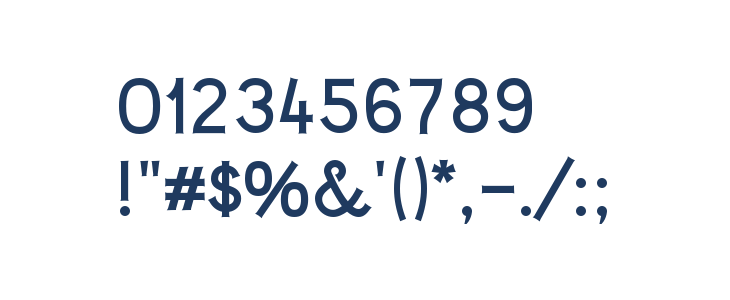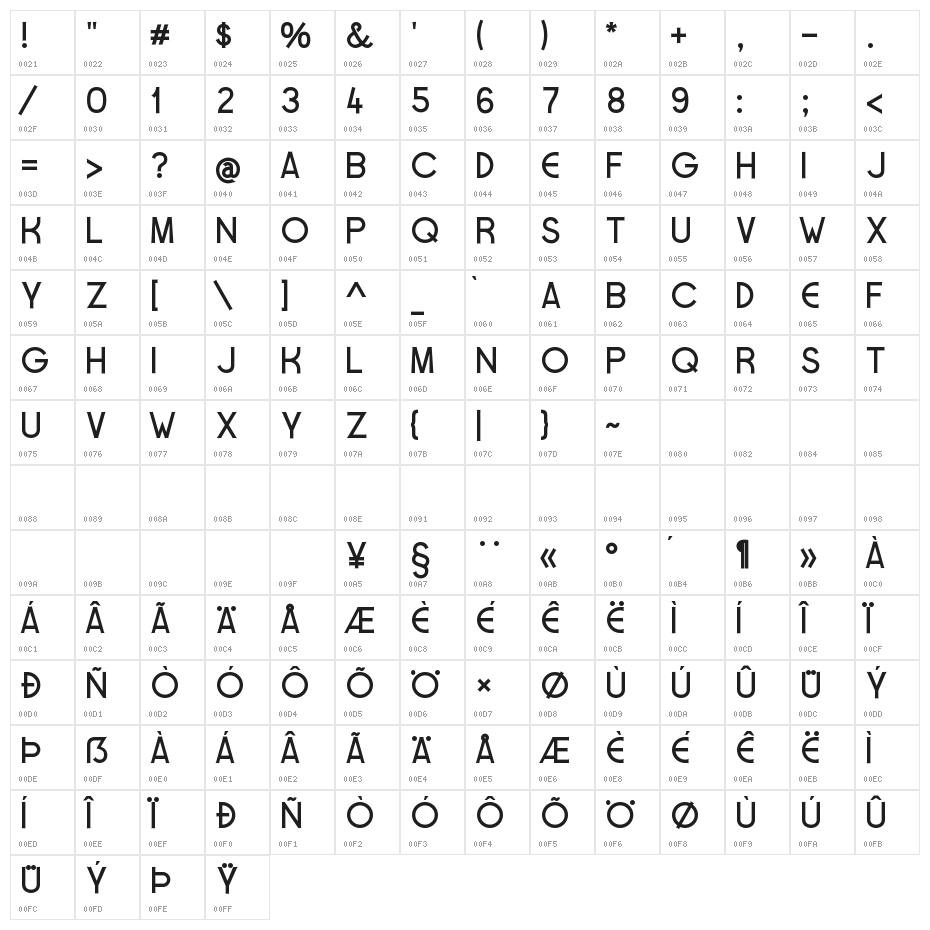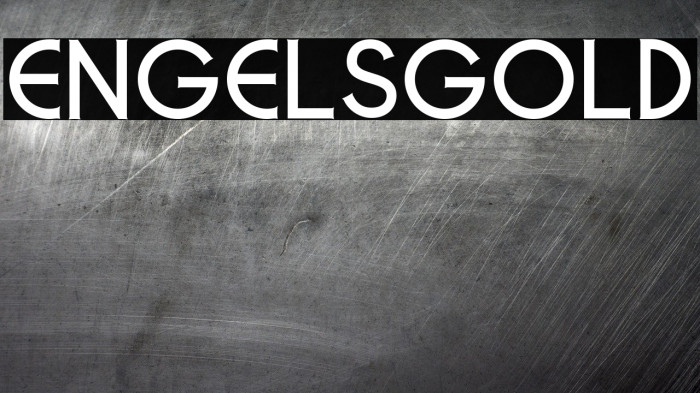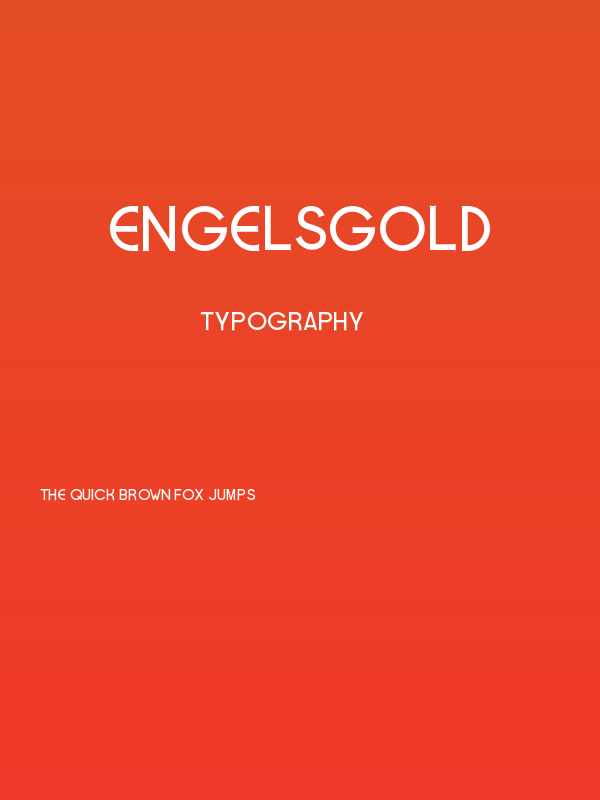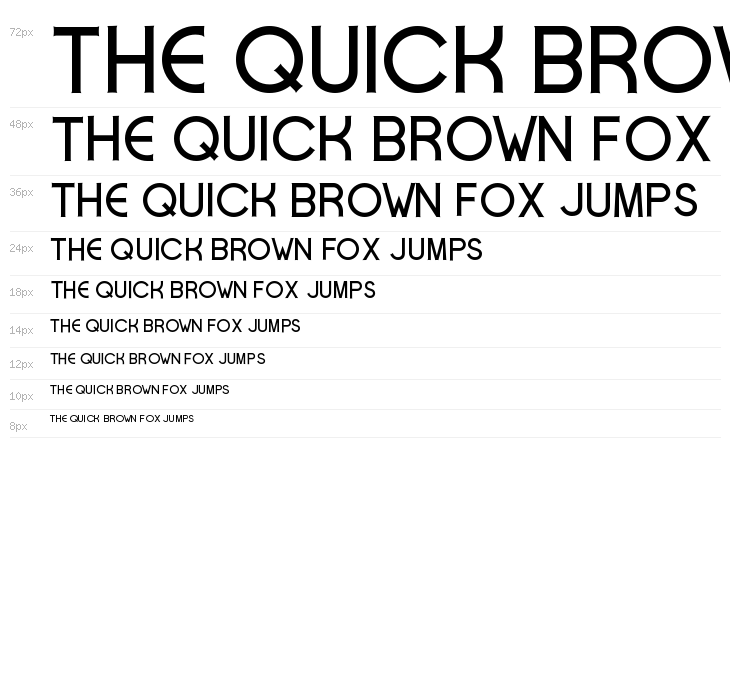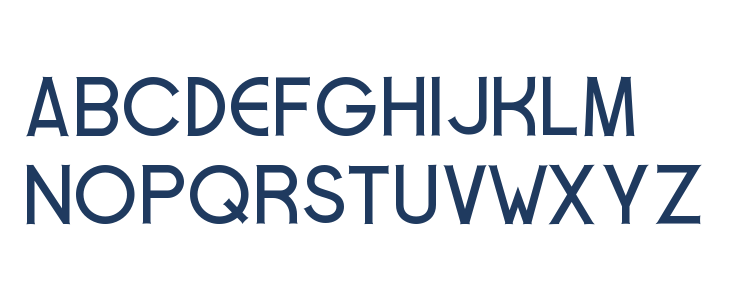
Engelsgold Font
Engelsgold Description
This font exhibits a clean and modern sans-serif style, characterized by its geometric shapes and uniform stroke widths. The uppercase and lowercase letters are well-proportioned, offering a balanced and harmonious appearance. The numerals are clear and legible, making them suitable for various applications. Special characters are included, maintaining the font's cohesive design. The overall look is sleek and professional, making it versatile for both digital and print media.
| Proposed Projects | Ideal for branding, corporate materials, web design, and editorial layouts. |